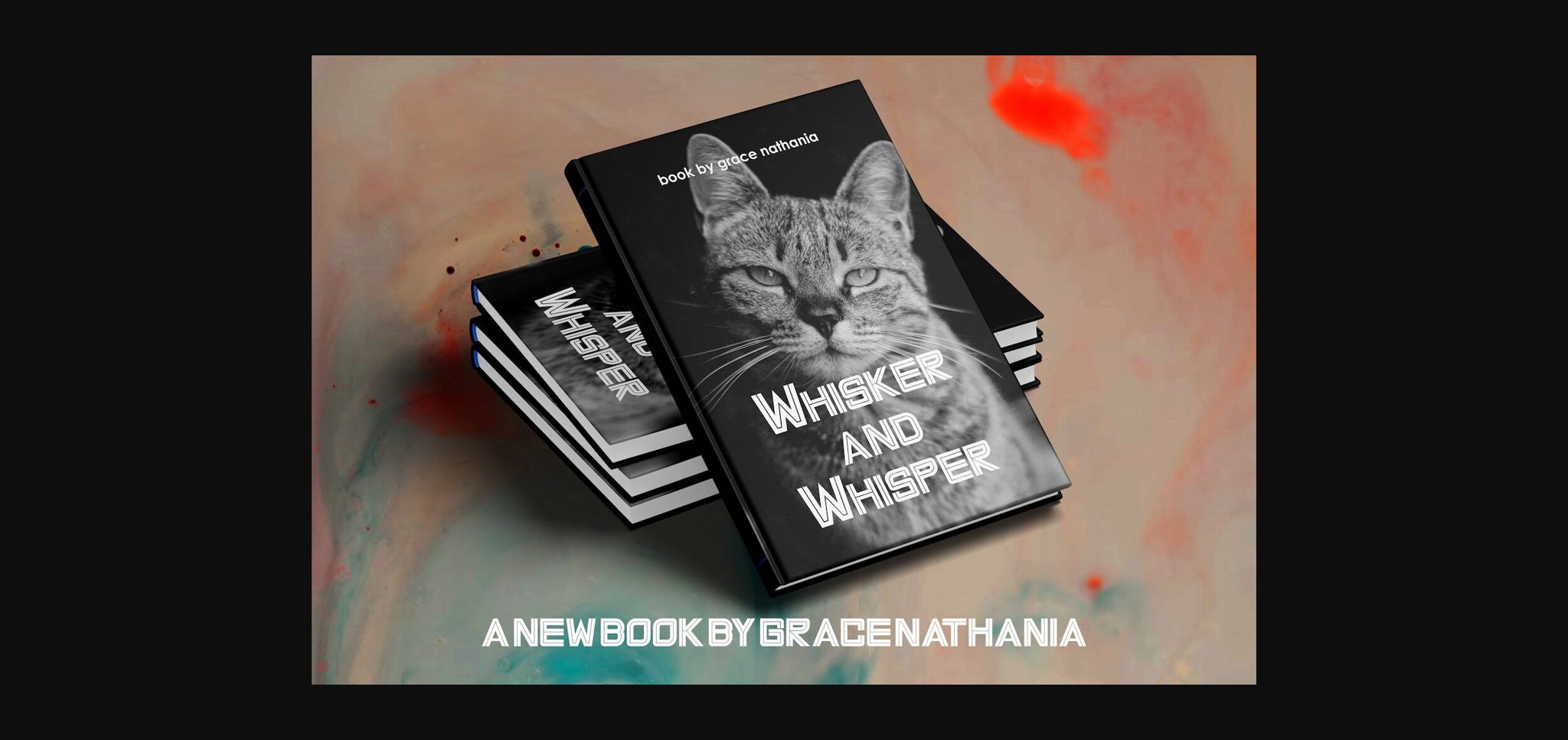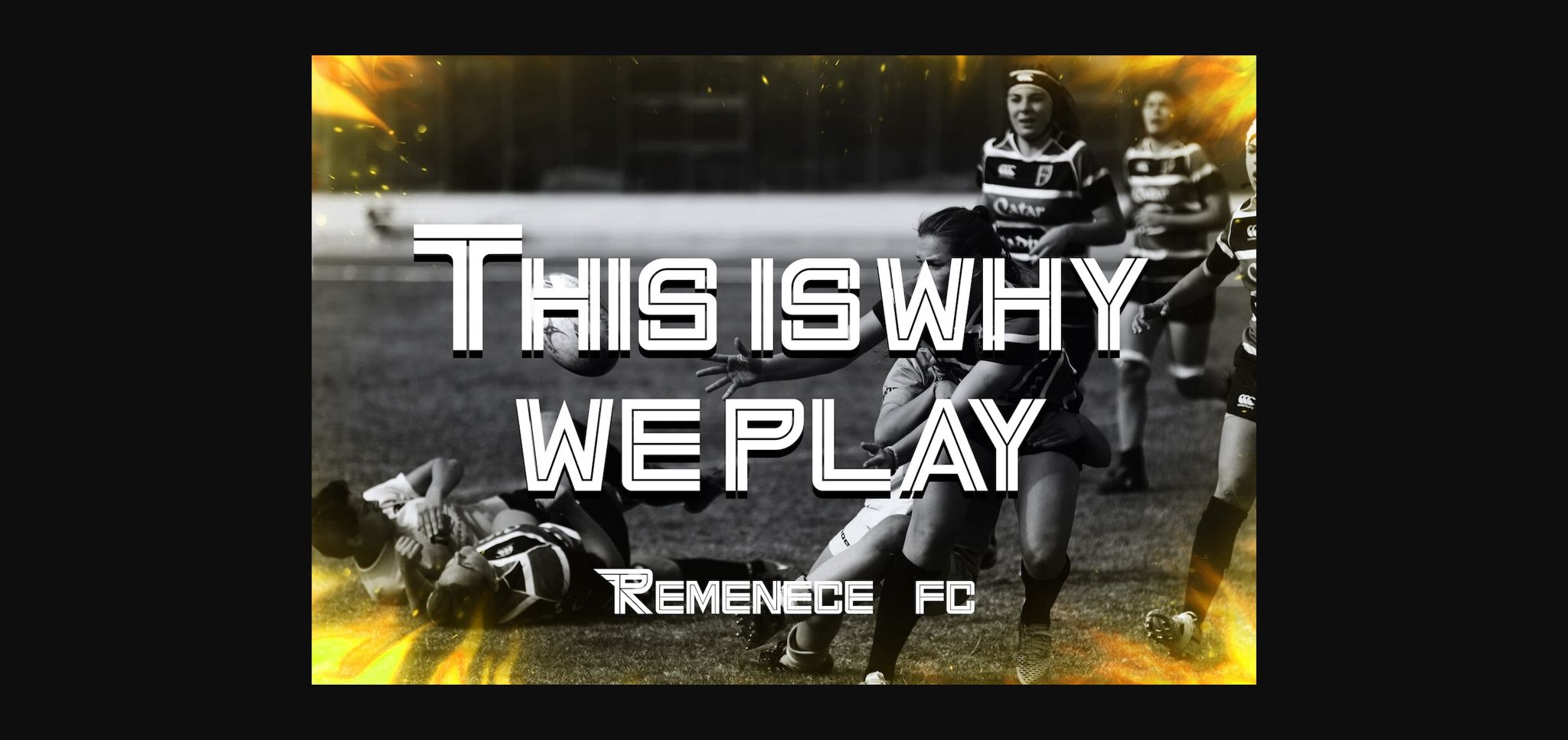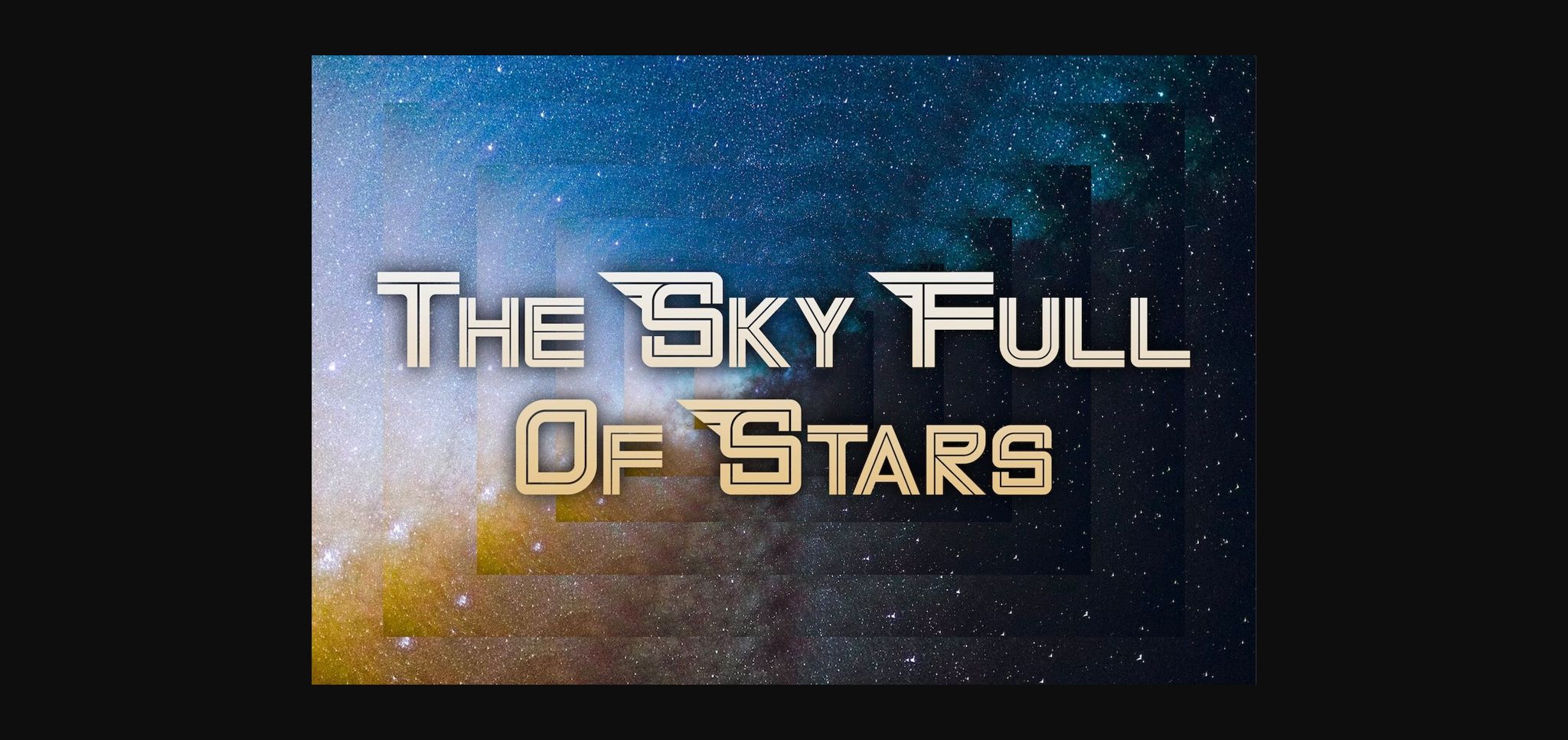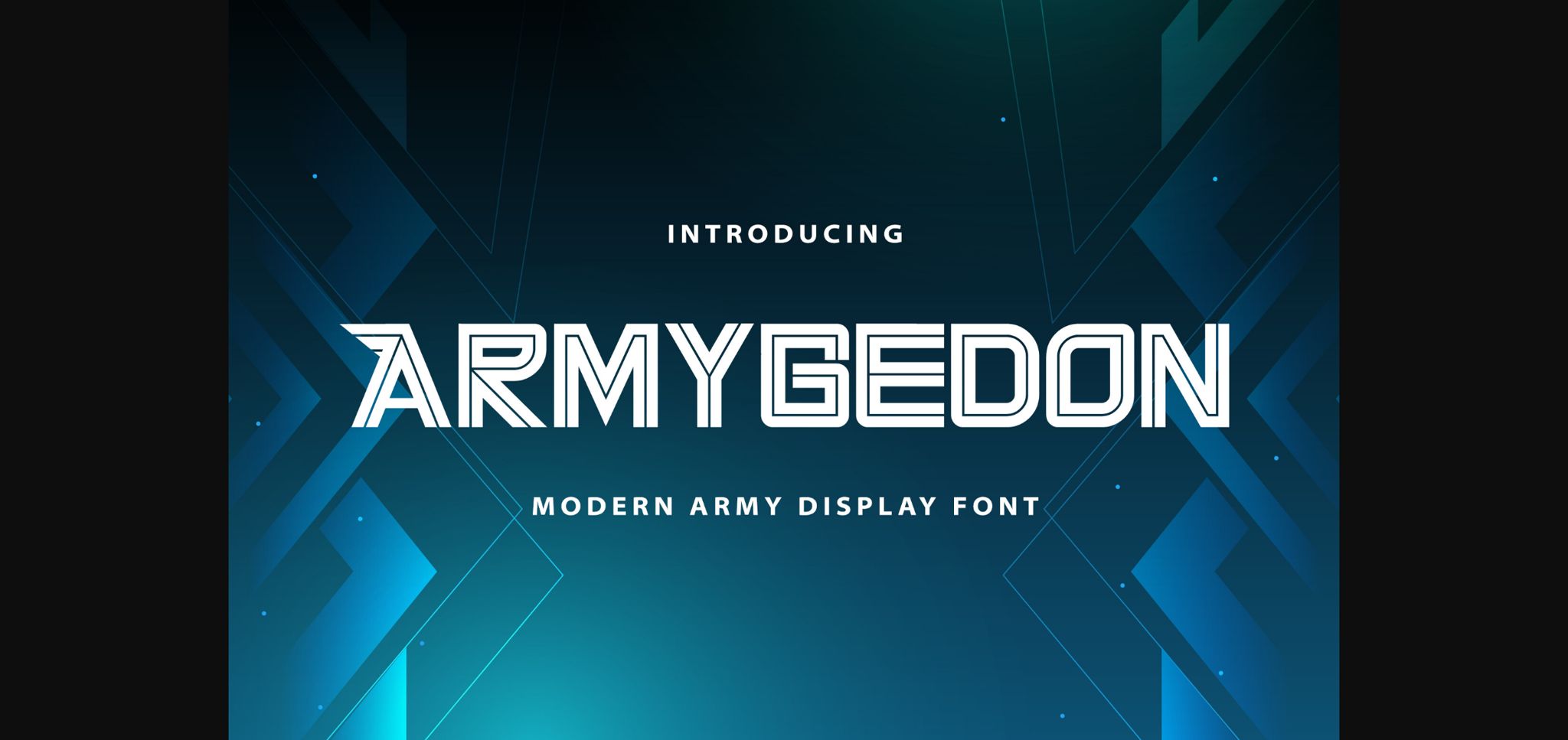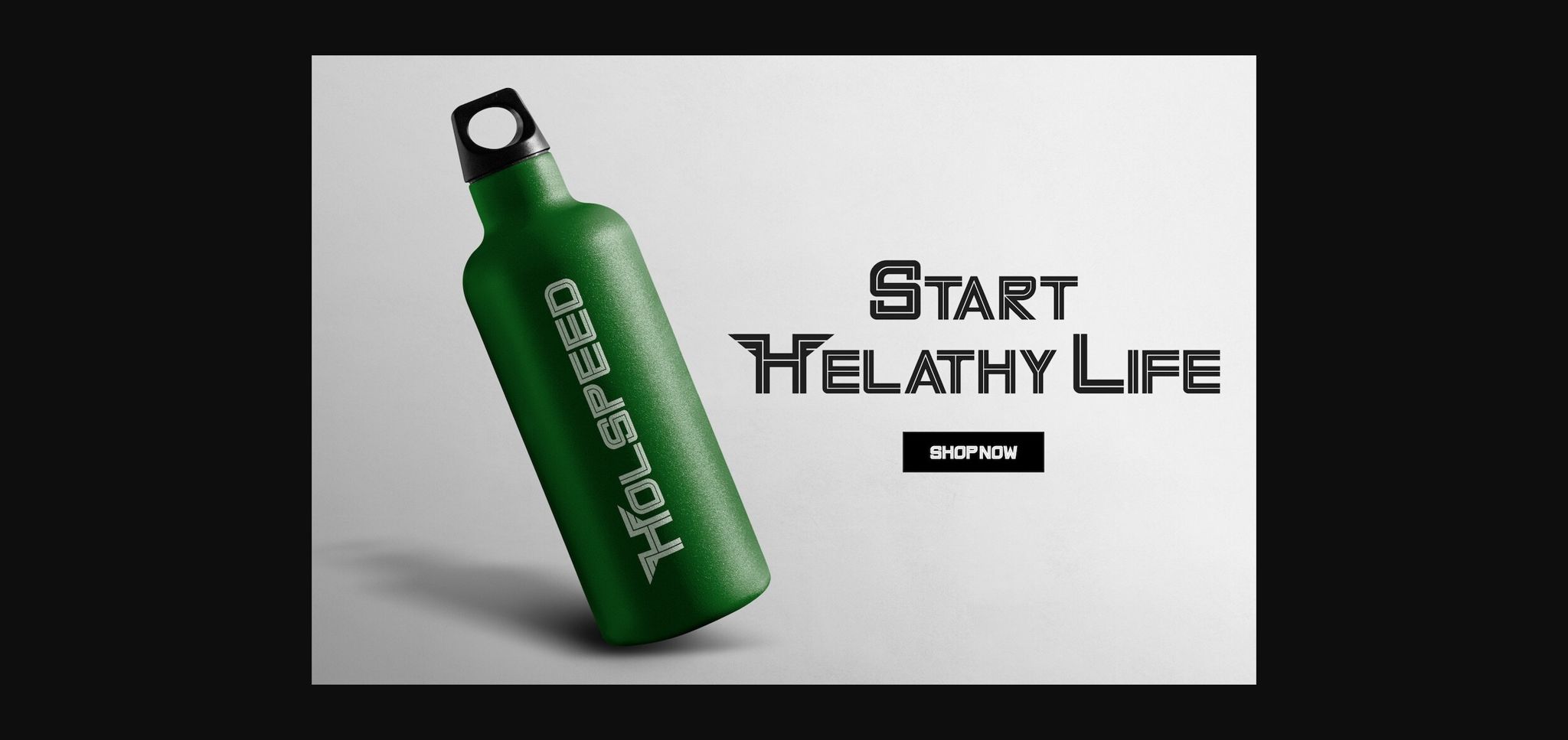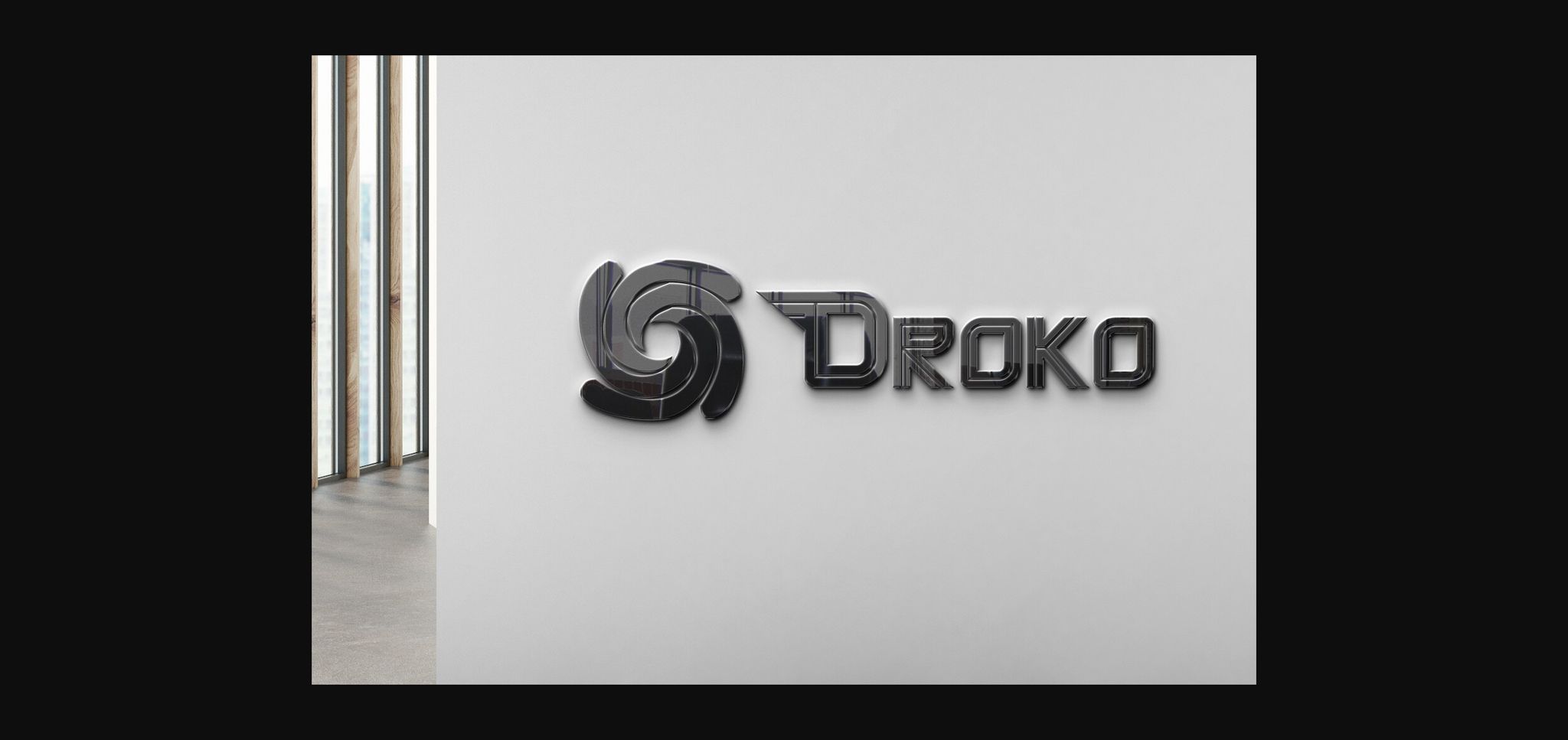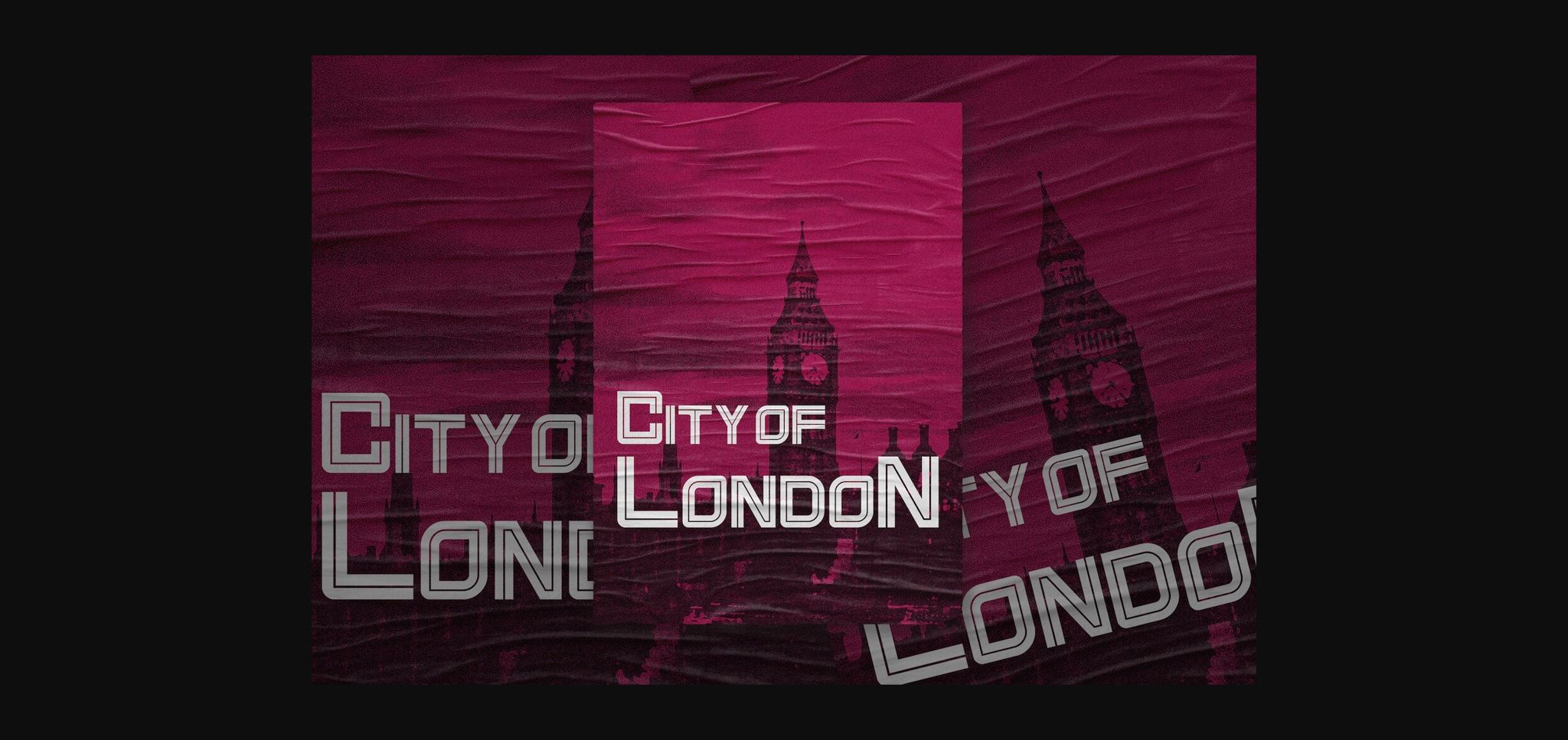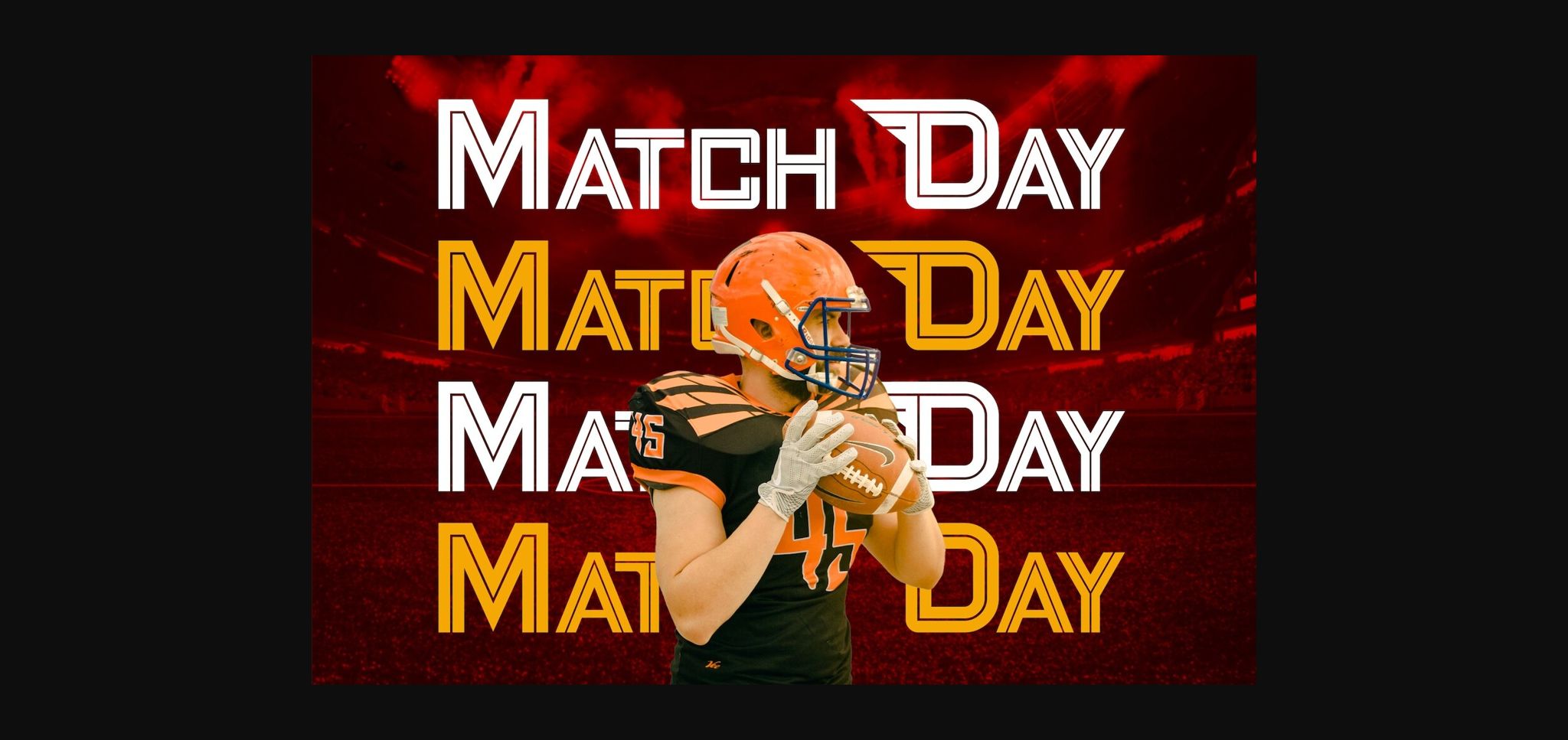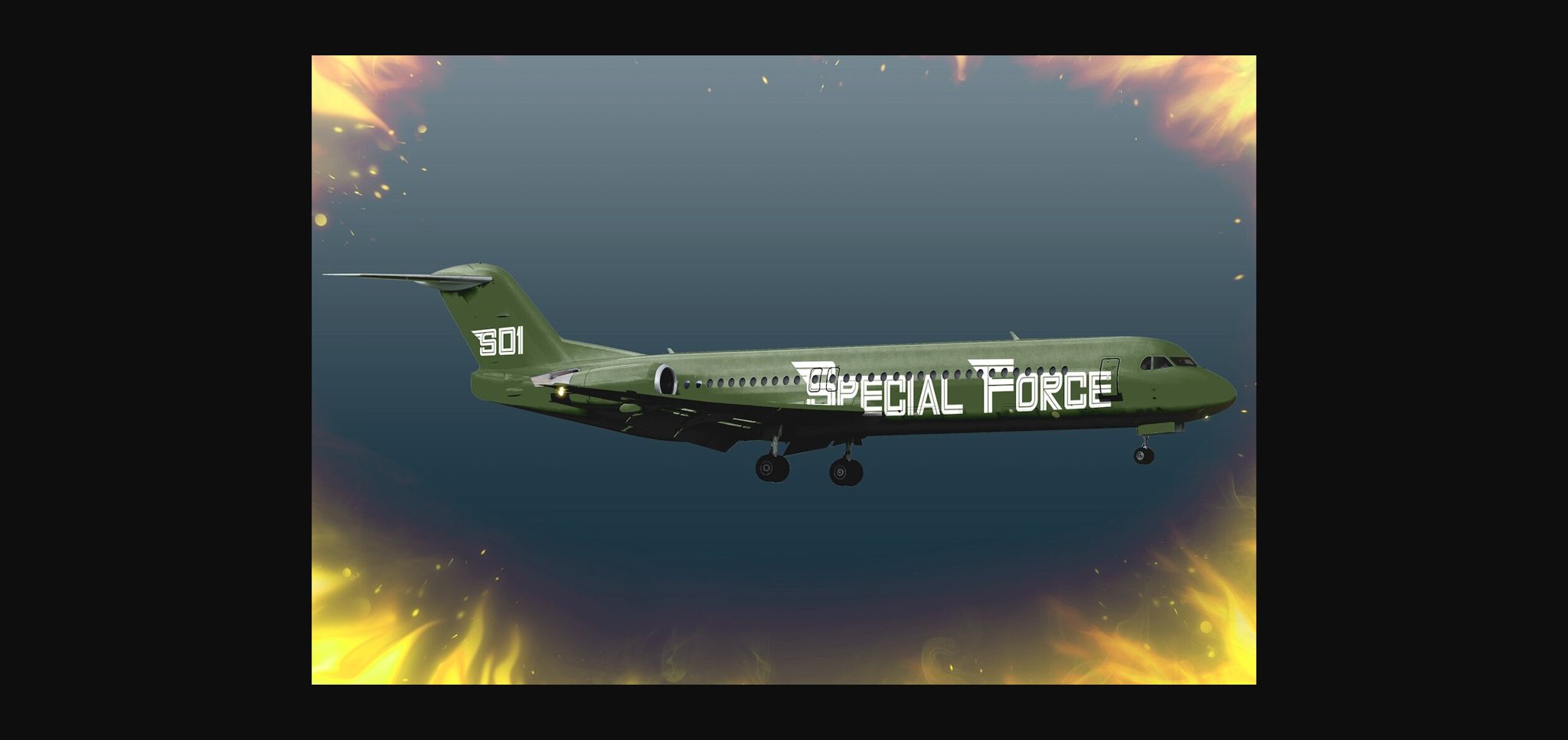
HomeSans Serif FontsArmygedon Font Sans Serif Fonts Armygedon Font FacebookXPinterestWhatsApp 1 of 11 ... Armygedon Font Poster 2... Armygedon Font Poster 3... Armygedon Font Poster 4... Armygedon Font Poster 5... Armygedon Font Poster 6... Armygedon Font Poster 7... Armygedon Font Poster 8... Armygedon Font Poster 9... Armygedon Font Poster 10... Armygedon Font Poster 11... About Armygedon Font Armygedon is a modern futuristic sans font with a bold army feel. It will add a contemporary update to any design project. On top of everything, it has a techno feel to it, making it ideal for titles, subtitles and much more. DOWNLOAD NOW People also explored Palmetto Techno Sphere Font Gladiolus Font Wintergarden Font Conntributor Font Alesandra Font Mandala Vintage Font Sintyabelinda Font Dorrotthy Script Font 488 0 TagsArmygedon Font Previous articleGeravo FontNext articleSuper Guardian Font LEAVE A REPLY Cancel reply Comment: Please enter your comment! Name:* Please enter your name here Email:* You have entered an incorrect email address! Please enter your email address here Website: Save my name, email, and website in this browser for the next time I comment. Personal Use Free Catandra Script Personal Use Free Read more about this font Zelega Zenega Personal Use Free Read more about this font Pasile Personal Use Free Read more about this font Straighler Personal Use Free Read more about this font BLOG Free vs Paid Fonts: Why Investing in Premium Fonts Is Worth It Free vs Paid Fonts: Why Premium Fonts Are Worth It in 2025 The debate of free vs paid fonts continues in the design world. While... Best Fonts for YouTube Videos: Make Your Thumbnails Stand Out To increase your work productivity, choose the most readable fonts. Free Fonts Risk: Why Free Fonts Can Be Dangerous for Designers